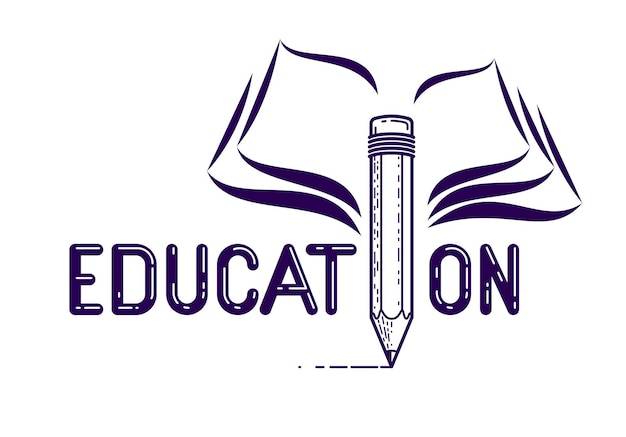
education word with pencil instead of letter i and book, study and learning concept, vector conceptual creative logo or poster made with special font.